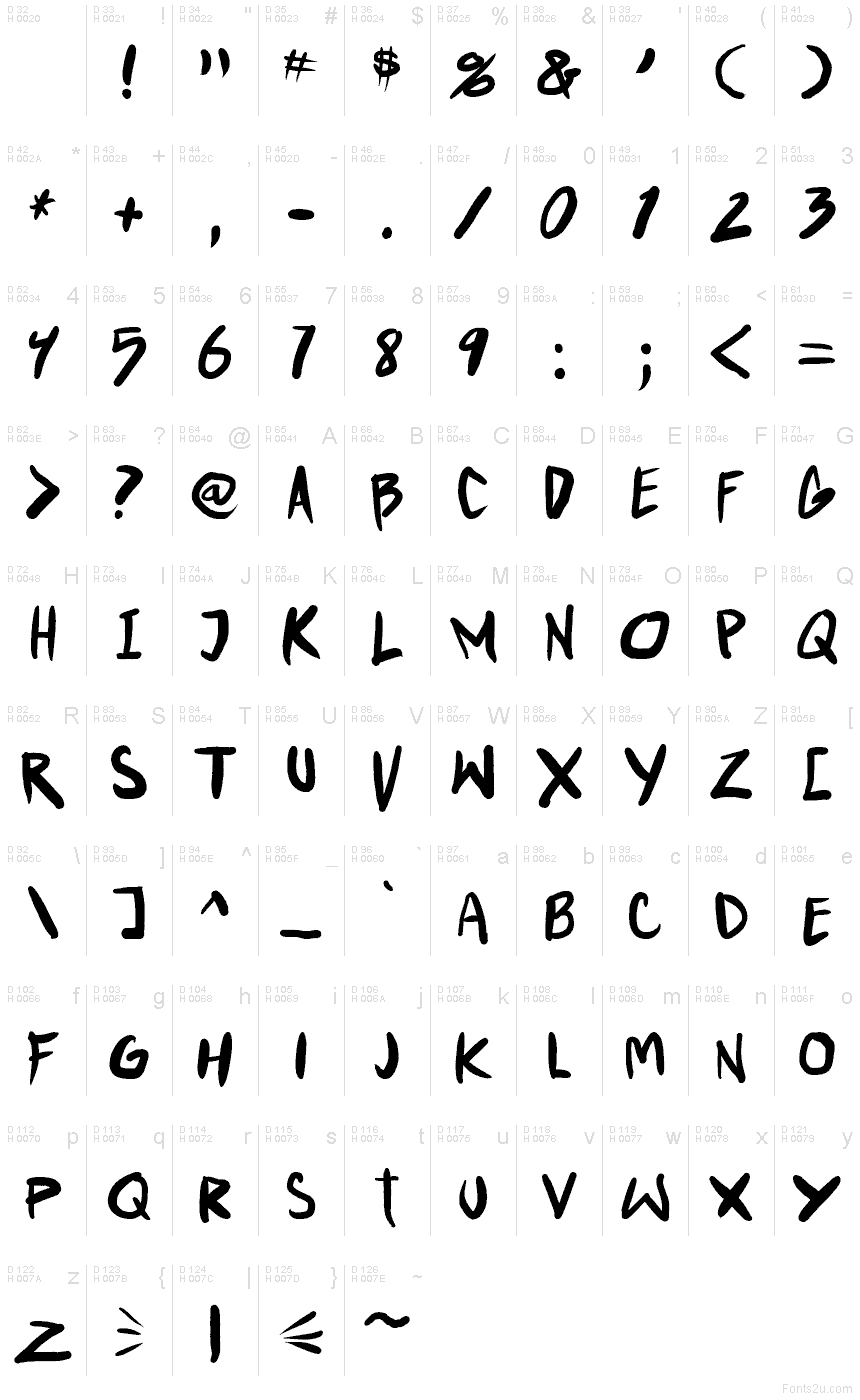
Punkboy 2.0
Punkboy 2.0 font by Press Gang Dtudios is a free brush font that looks like it’s been slammed onto a wall with a fat, inky marker. The letters are loose, loud, and slightly jagged, with dark, almost smeared strokes that feel straight out of a zine cover or gig flyer. It captures that scrappy, photocopied, late-night energy without turning into visual chaos, so your text still reads fast at a glance.
Using Punkboy 2.0, you can push attitude into posters, album art, streetwear graphics, stickers, YouTube thumbnails, and bold social posts. This free font shines when you keep it big and unapologetic, letting the thick strokes and rough edges do the talking. Pair it with a clean, narrow sans serif in small sizes for captions or details, and you get a gritty-but-readable mix that still feels DIY.